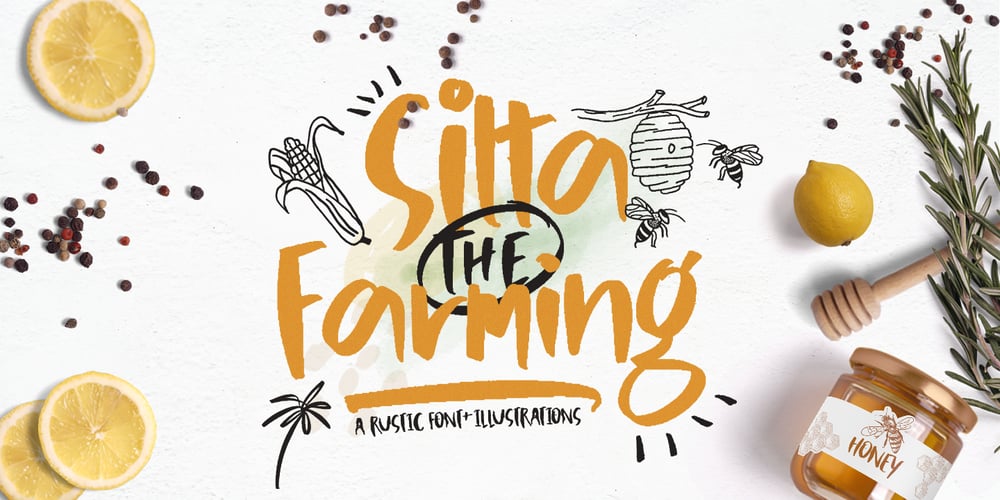
Silta The Farming Font Family was designed by Sukjana Almunandar and published by Alcode. Silta The Farming contains 2 styles and family package options. Silta The Farming come with Regular style, it will make this typeface can be used in all design projects and works perfectly for pairing with Display typeface or script fonts, Headlines, Posters, Packaging, T-shirts, Postcards, Invitation, Wedding Sign, Sign Painting, Signboard, and much more.Try Silta The Farming, enjoy the richness of OpenType features and let her fun and elegant excitement make you happy and enhance your creativity! You can use this font very easily.